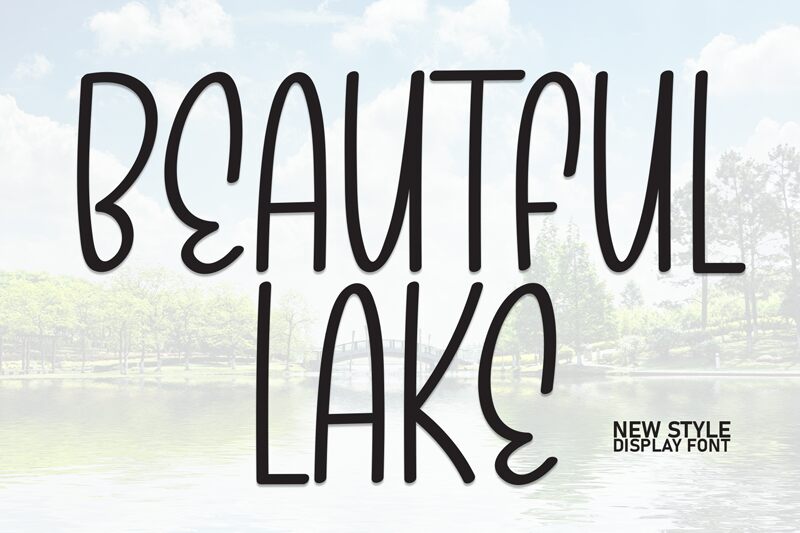
Beautiful Lake
Beautiful Lake font is a handcrafted creation by Andi Moz that combines sleek contemporary design with subtle retro elements. This condensed handwritten font delivers casual elegance and an artistic flair that makes it visually engaging. Its style serves beautifully for branding, advertising, signage, labels, taglines, and editorial or marketing headlines.